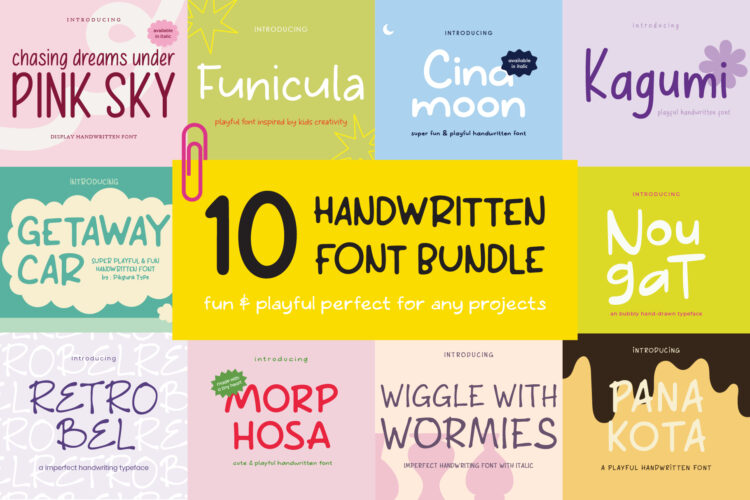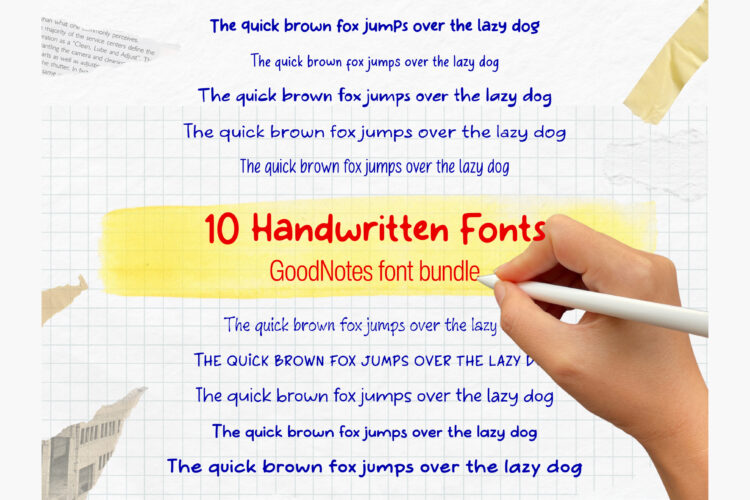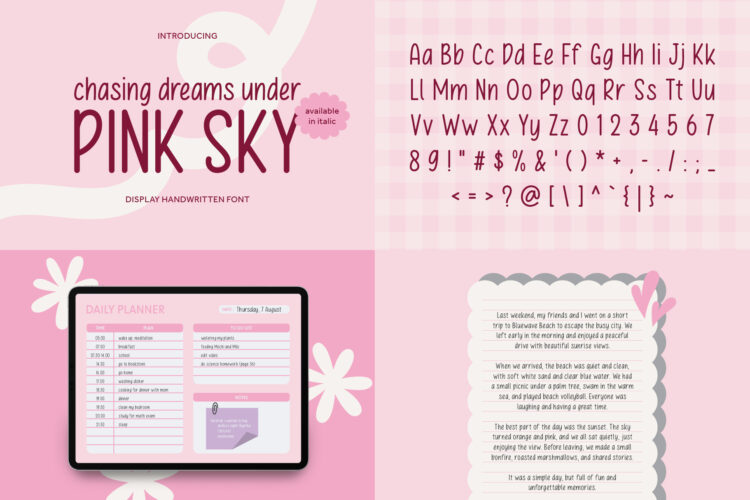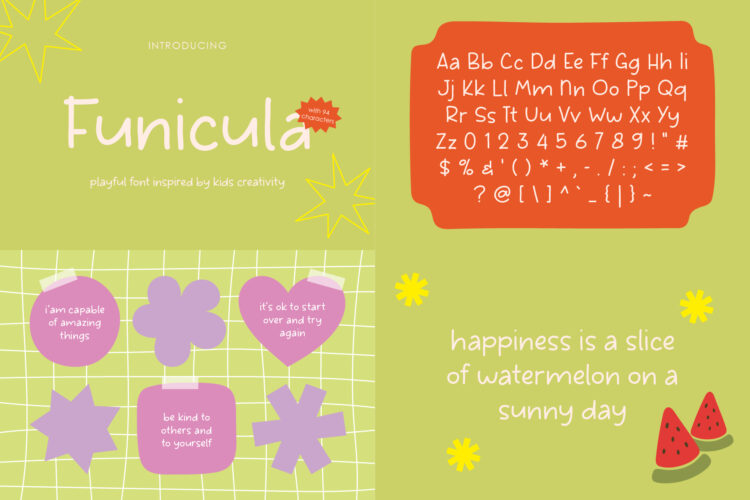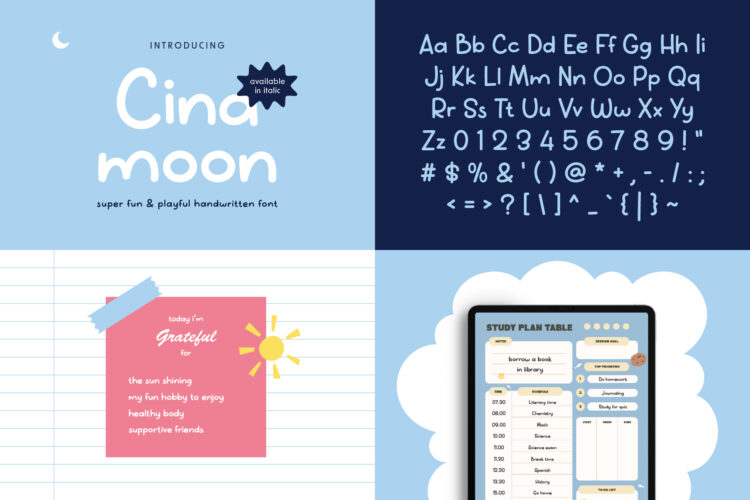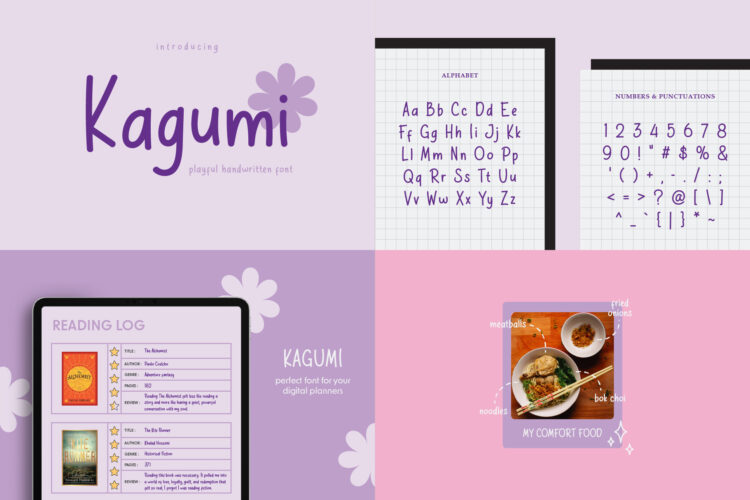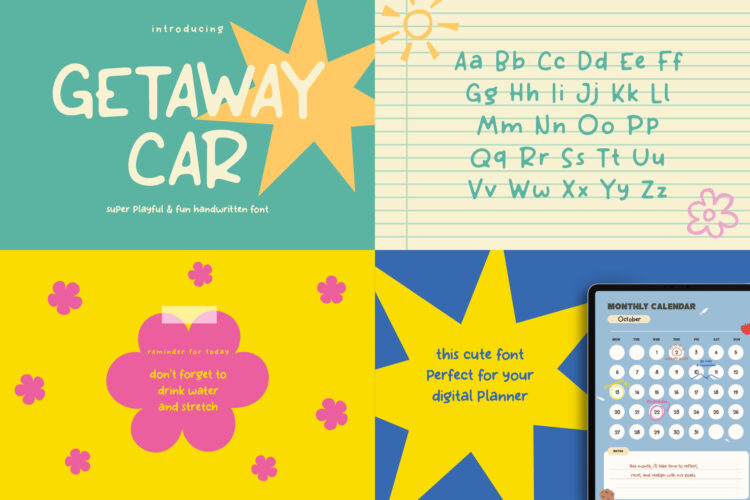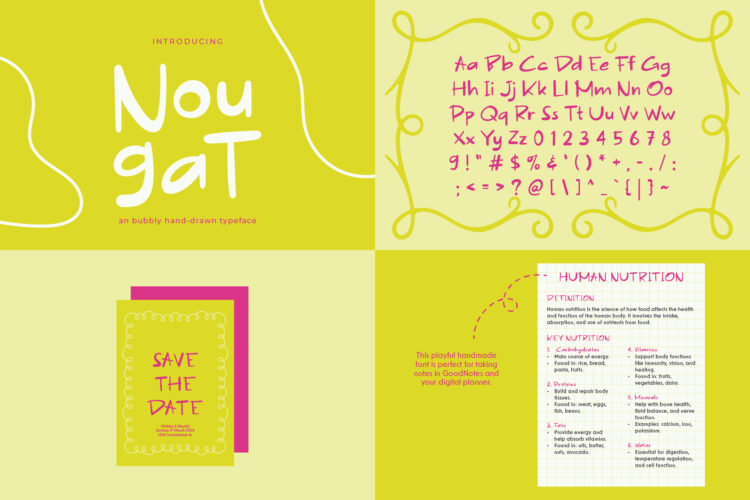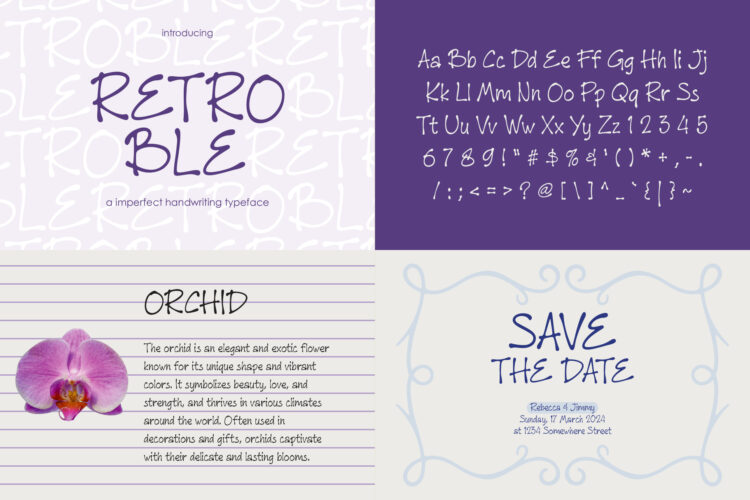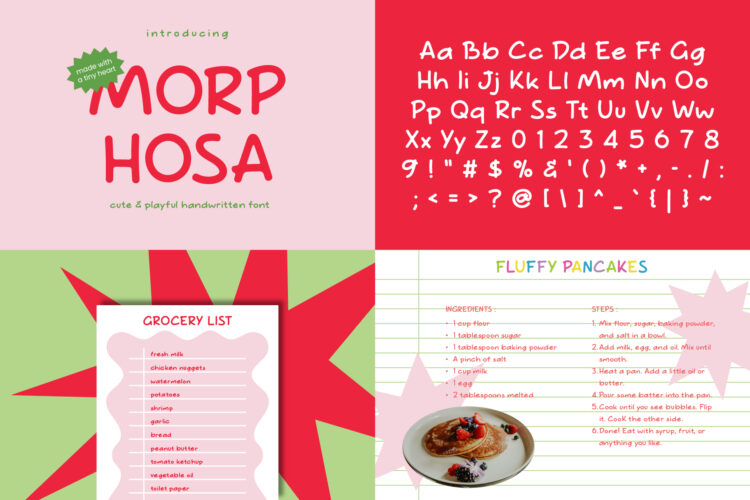
Pink Sky - Regular
Pink Sky - Italic
Funicula
Cinamoon - Regular
Cinamoon - Italic
PGR Kagumi
PGR Getaway Car
PGR Nougat
Retrobel
Morphosa
PGR Wormies - Regular
PGR Wormies - Italic
Panakota
Bring your creative projects to life with this Handwritten Font Bundle. It includes 10 unique, hand-drawn fonts, each with its own personality. The styles range from cute and playful to fun and scribbly, all designed to stand out and feel totally one-of-a-kind.
These fonts are perfect for a wide variety of uses. Try them on magazines, posters, children’s books, logos, product packaging, digital planners, or even notes. Whatever your project, these fonts add a charming, handmade touch.
Handwritten Font Bundle: 10 GoodNotes Font